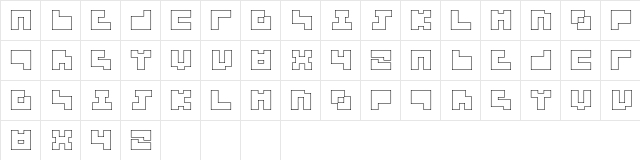
3x3 outline
Design Context for 3x3 Typeface
3x3 is built around its visual character rather than neutral utility — its distinctive forms are designed to make an impression at display sizes.
Font Pairing: Pair with a clean neutral sans-serif for body copy to let 3x3's character lead without overwhelming the composition.
Pro Tip: Use 3x3 exclusively at display sizes — it was designed to be seen, not read at length. Let a neutral companion handle body copy.